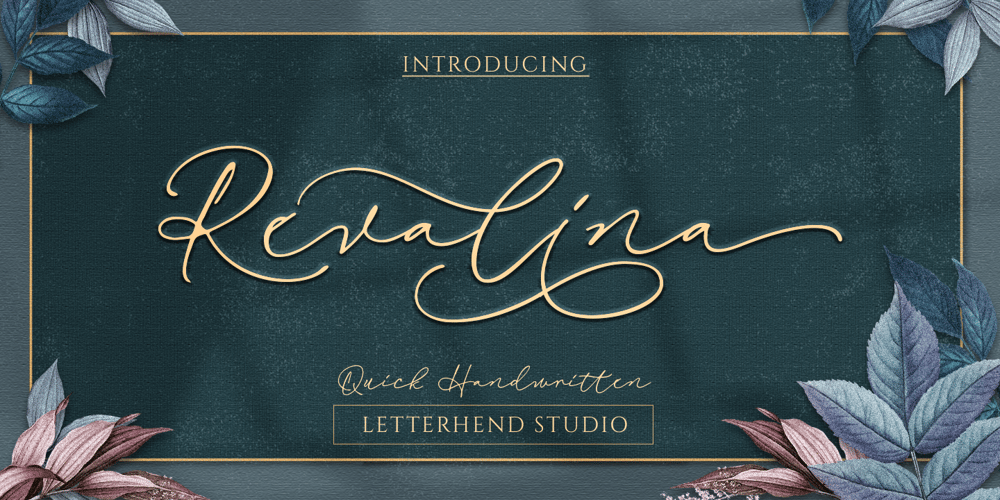
Revalina
Revalina font
Revalina Font Family was designed by Hendry Juanda and published by Letterhend. Revalina contains 1 styles and family package options. Introducing, Revalina Signature Script – a typeface inspired by natural hand written. This font has many stylistic alternates, ligatures, swashes so you can play around with them using opentype features and creates lettering with natural touch. This type of font perfectly made to be applied especially in logo, and the other various formal forms such as invitations, labels, logos, magazines, books, greeting / wedding cards, packaging, fashion, make up, stationery, novels, labels or any type of advertising purpose.Features : uppercase & lowercase numbers and punctuation multilingual alternates and ligatures swashes PUA encoded We highly recommend using a program that supports OpenType features and Glyphs panels like many of Adobe apps and Corel Draw, so you can see and access all Glyph variations.